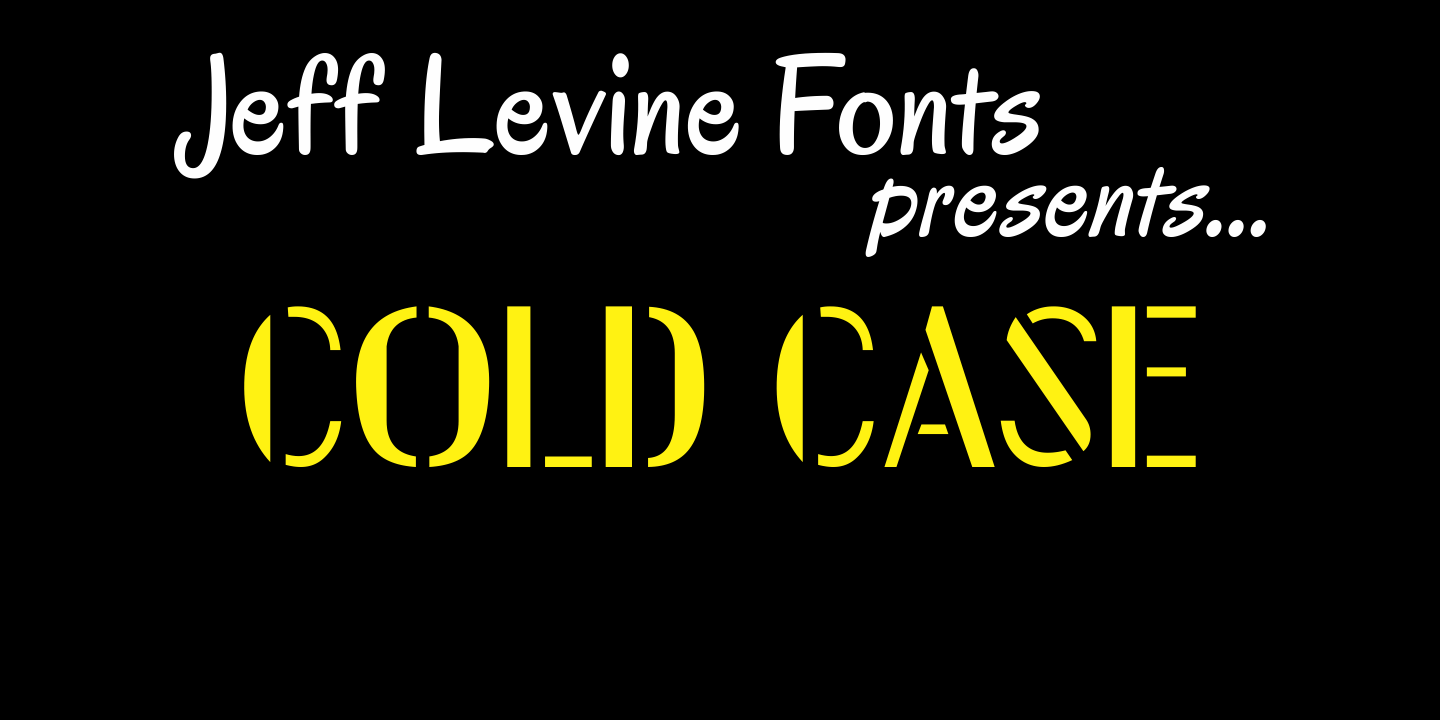
Cold Case
The unusual type design that comprises Cold Case JNL was modeled from a 1950s set of letter and number stencils manufactured by the Huntington Oil Cured Stencil Company of Huntington, NY (later relocating to South Florida).